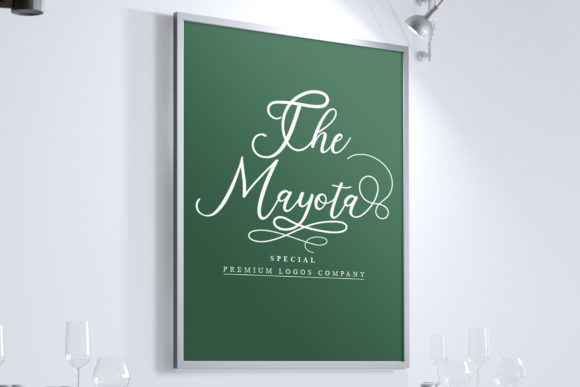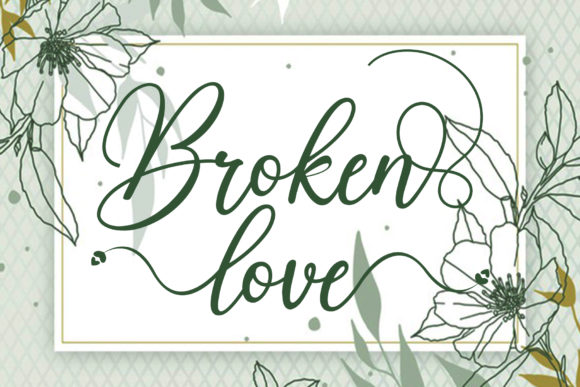
Amelyha Font
db-ku.com - Script & Handwritten -- Amelyha feels incredibly elegant and flowing. It looks stunning on wedding invitations, thank you cards, quotes, greeting cards, logos, business cards and every other design which needs a handwritten touch. This font is PUA encoded which means you can access all of the glyphs and swashes with ease!